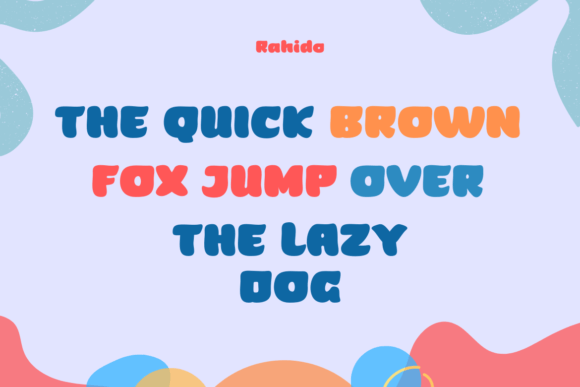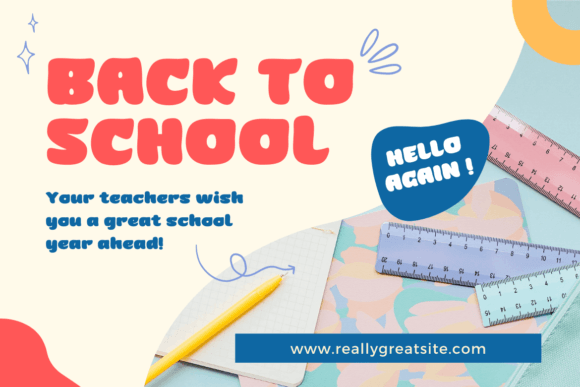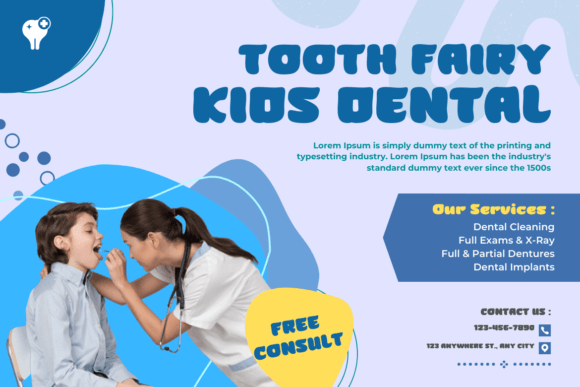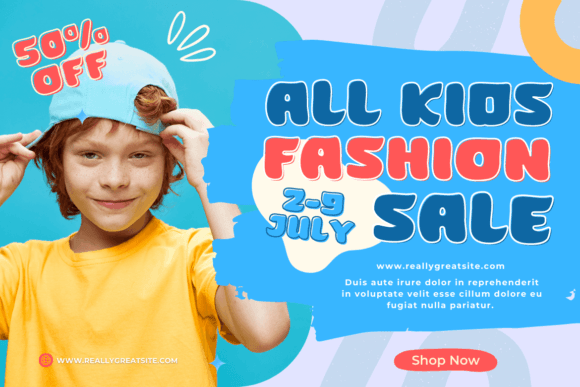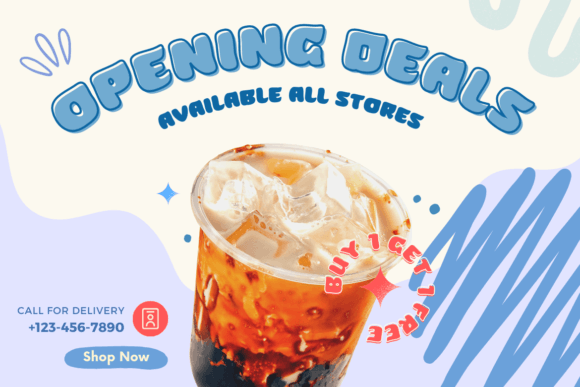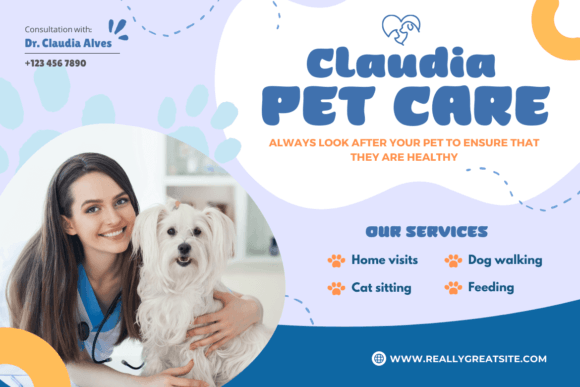
Introduction to Rahido Font Font
Fonts play a crucial role in design, and the Rahido Font font is a typeface that brings both character and versatility to any project. Whether you’re working on a branding project, a website, or a print design, the Rahido Font font offers a unique style that can elevate your work.
Rahido is a relaxed and cute display font perfect for any creative project you wish to create.
Key Features of Rahido Font Font
Why Choose Rahido Font Font?
The Rahido Font font is more than just a typeface – it’s a design tool that helps you communicate your message with style and clarity. Its unique character set and versatile design make it suitable for a wide range of applications, from elegant invitations to bold headlines.
With its carefully crafted letterforms and balanced proportions, the Rahido Font font ensures readability and visual appeal across all mediums.
What makes Rahido Font font special?
The Rahido Font font stands out with its unique design, exceptional readability, and versatility across various design applications.